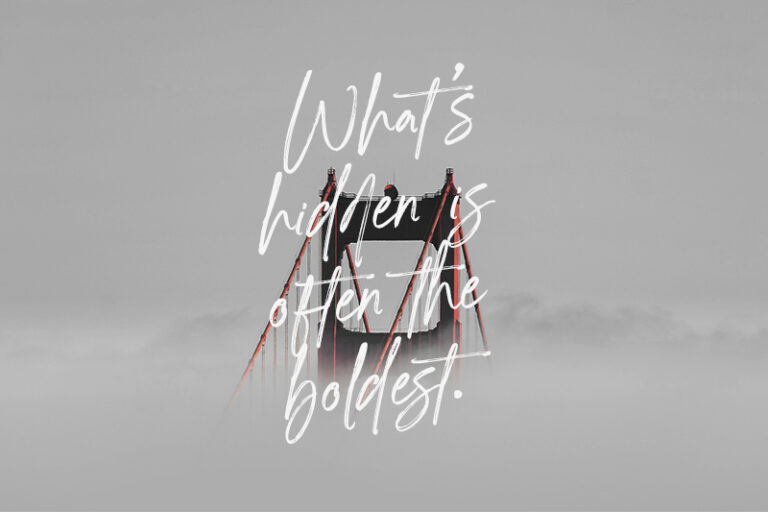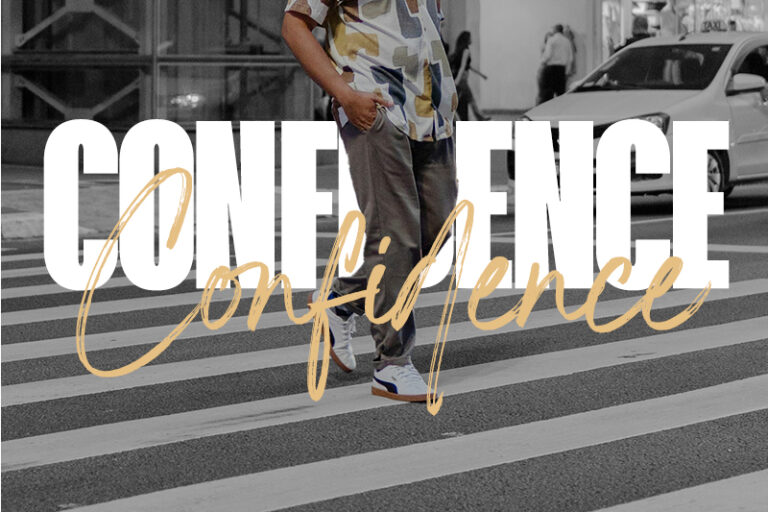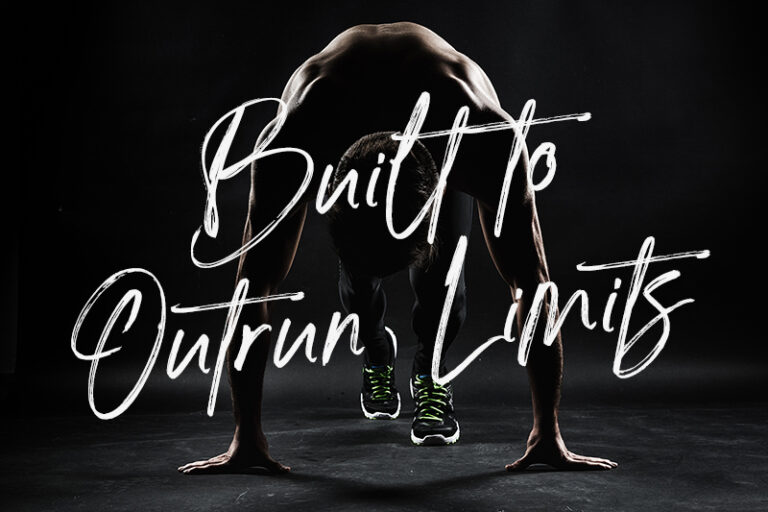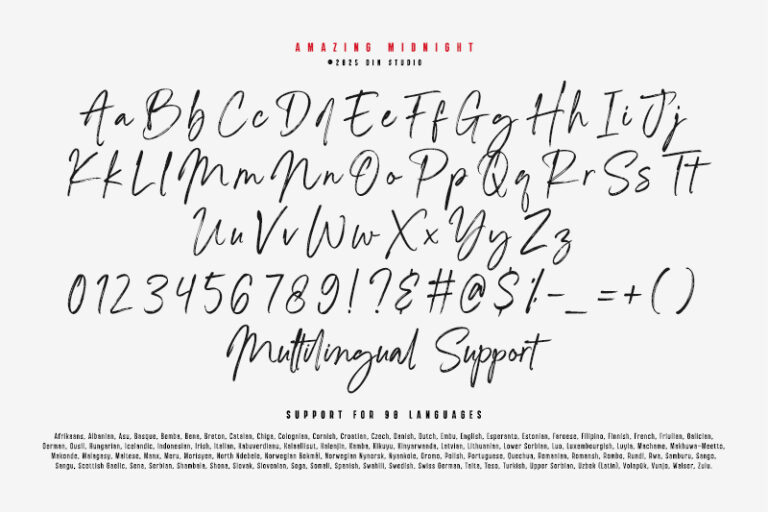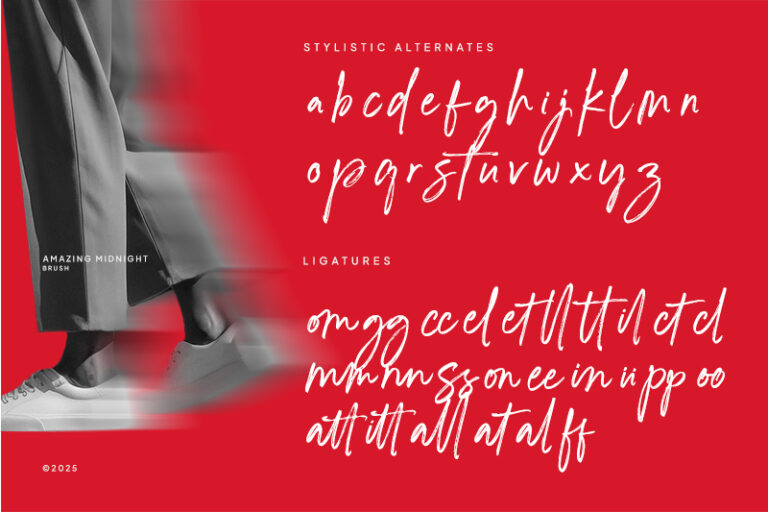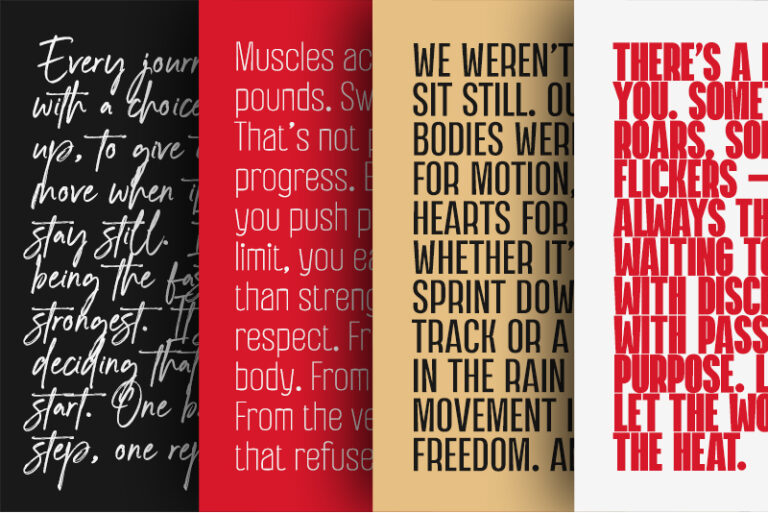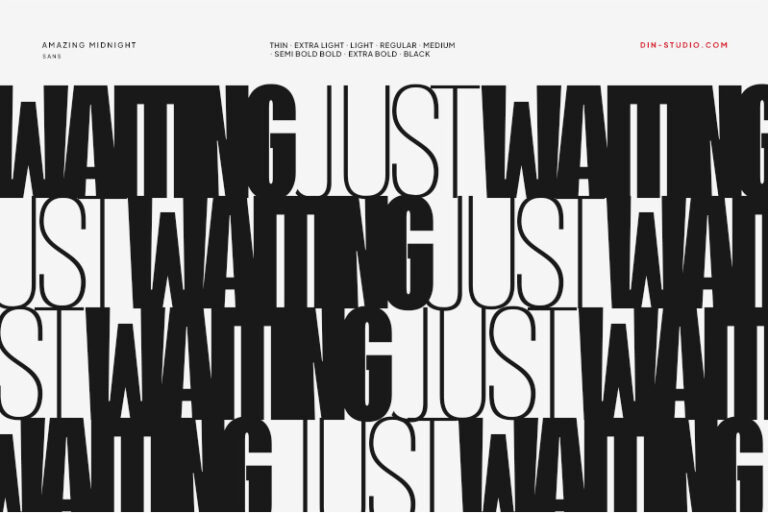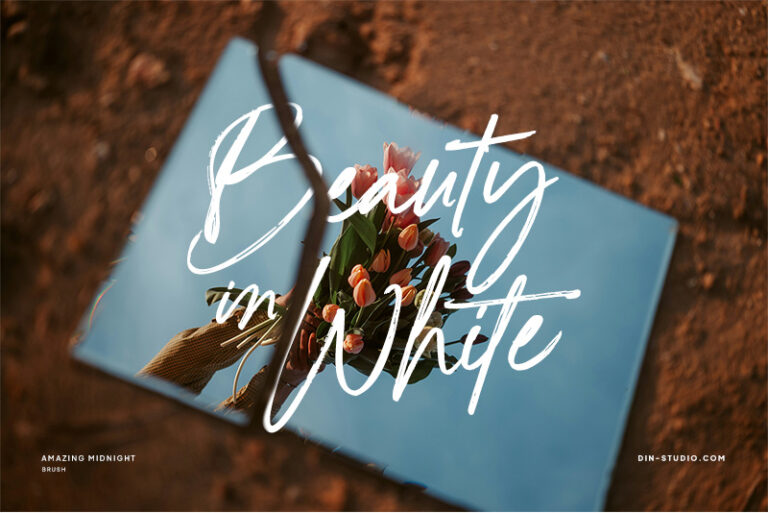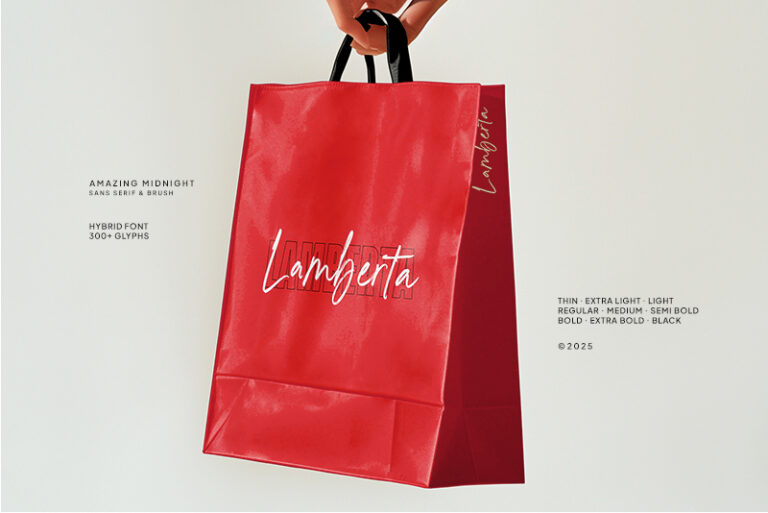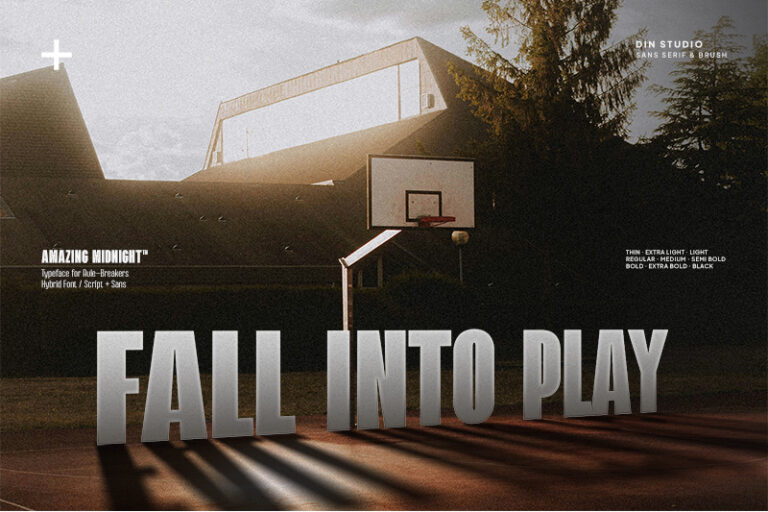
Amazing Midnight – Modern Font Duo Sans Serif Family and Brush
Amazing Midnight is a captivating brush and sans serif font duo designed to bring authentic character and modern simplicity together. The brush script font mimics natural handwriting with expressive, fluid strokes, capturing the true essence of handcrafted brush lettering. Its organic, personal feel adds warmth and authenticity to any project. Complementing this is a clean, minimalist sans serif typeface offered in nine versatile weights, from Thin to Black, providing flexibility and balance for a wide range of applications. Together, Amazing Midnight offers a harmonious pairing. In addition, enjoy the features here.
- Ligatures
- Stylistic Sets
Amazing Midnight fits in name cards, branding, packaging, posters, headlines, editorial designs, and many more designs. Find out more ways to use this font by taking a look at the font preview.